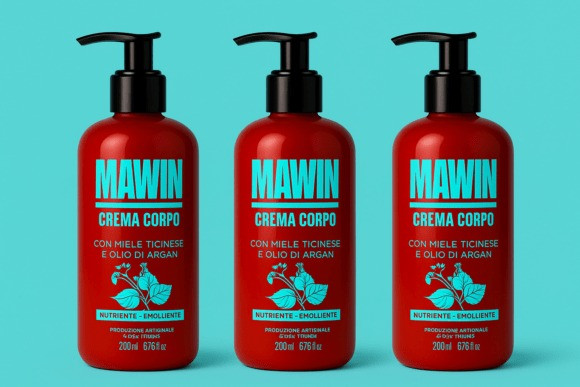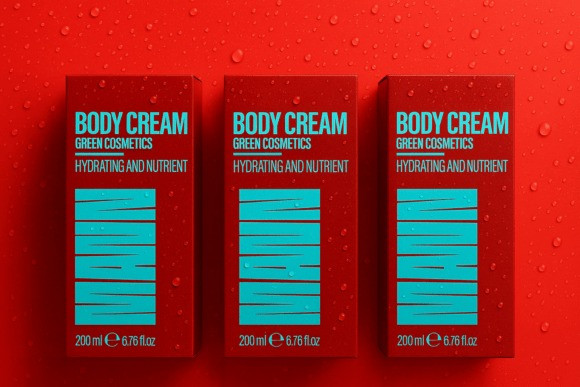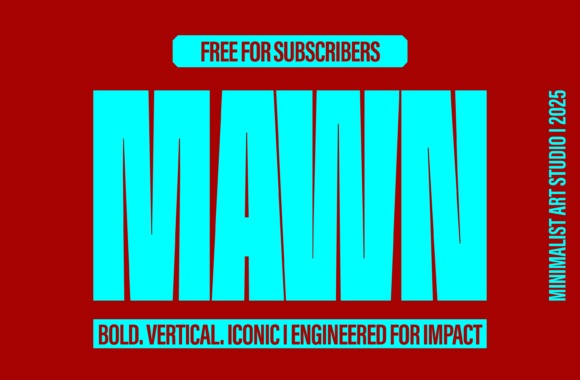
MAWN FONT
Mawn Font is a powerhouse sans serif designed for creators who want immediate visual impact. With its towering vertical proportions, razor-clean lines, and fearless geometric weight, MAWN commands attention in any layout. This font is engineered for maximum presence, making it perfect for branding, poster headlines, album covers, sports graphics, magazine titles, merchandise, and high-contrast minimalist design.
Its unique compressed shape gives you a bold, iconic look that stands out in modern digital environments—from social media ads to editorial layouts. Even at a glance, MAWN communicates strength, authority, and unforgettable style.
Whether you’re a designer building your next hero graphic or a brand seeking a signature typographic identity, MAWN delivers a visually aggressive yet refined aesthetic that instantly elevates your work.